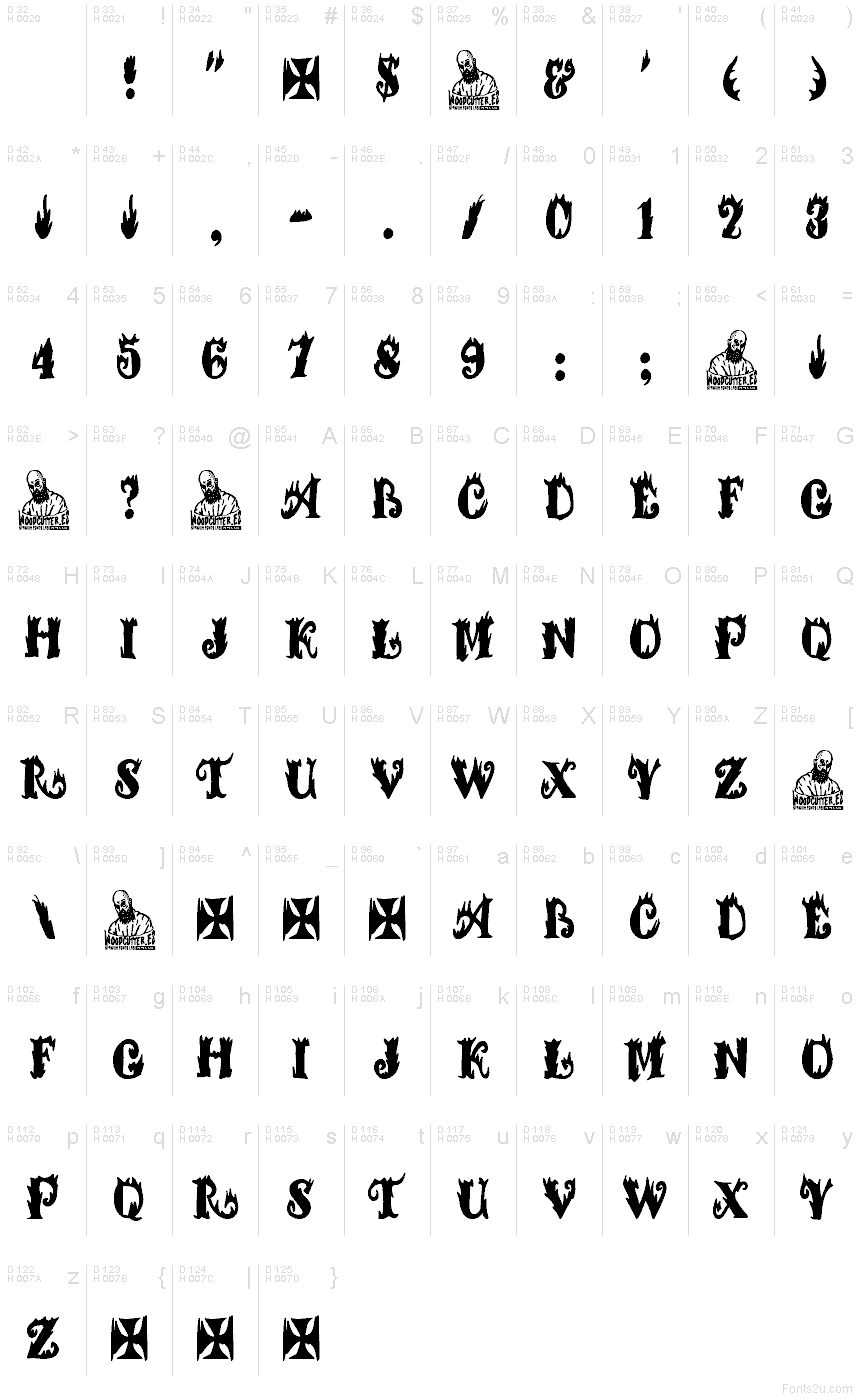
Stromboli Art Gallery
Stromboli Art Gallery font is a decorative display typeface from Woodcutter. Richly detailed and gothic-inspired, with ornate elements and historical ambiance, it presents art nouveau influences in sophisticated letters that attract the eye whenever they are used. Its luxurious look guarantees a different experience every day for designers who explore both simple texts as well as legendary ones.
A unique tasting calls for an innovative presentation, which is why Stromboli Art Gallery can be part of brewery and winery businesses logo designs. Promote high-fashion brands by adding this free decorative font to their business cards or showcase its artistic side with posters dedicated to art museums.